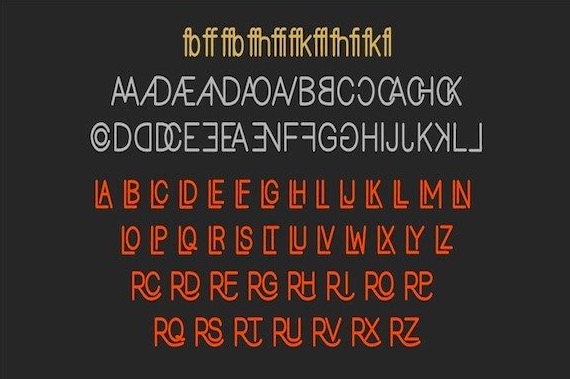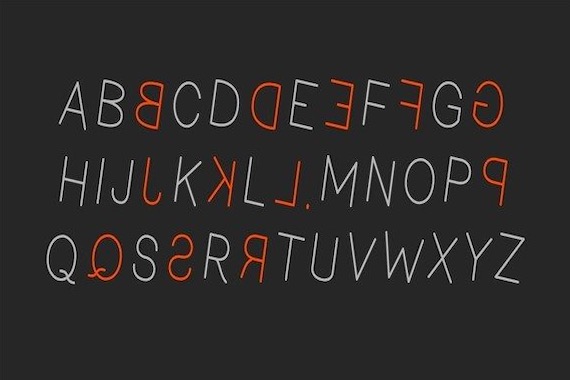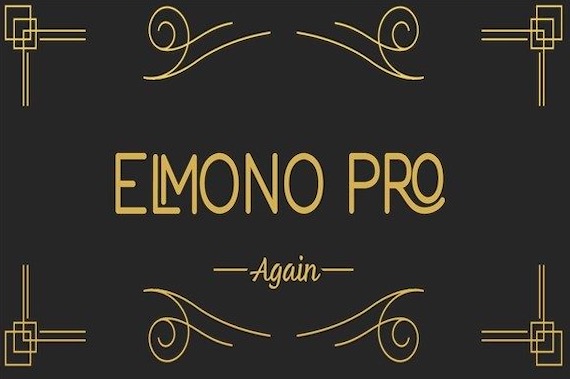
Elmono Pro Font
Elmono Pro Font is an elegant and natural sans serif typeface that was created and shared by Hamizan. Elmono Pro can easily be matched to an incredibly large set of modern designs, so add it to your creative ideas and notice how it makes them stand out!